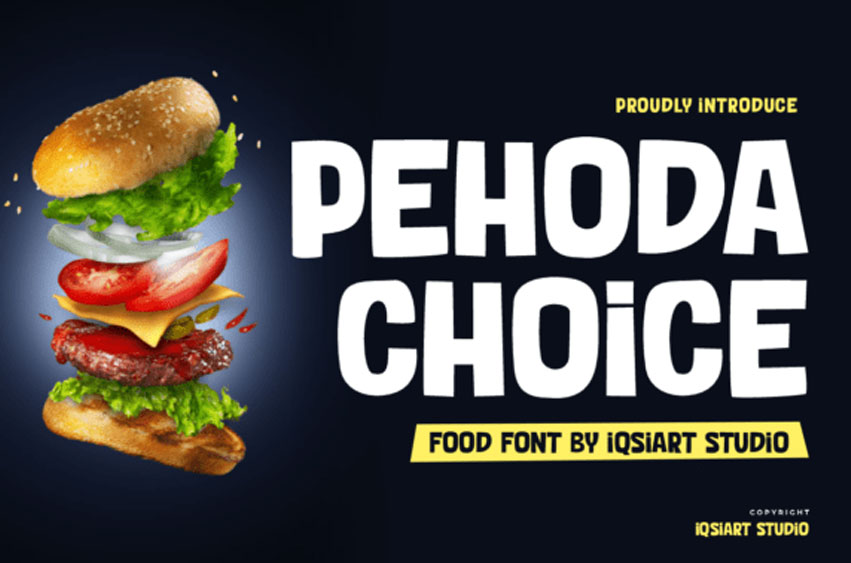
Pehoda Choice Font
Pehoda Choice Font is a sweet and friendly sans serif font. Its natural and unique style makes it incredibly fitting to a large pool of designs.